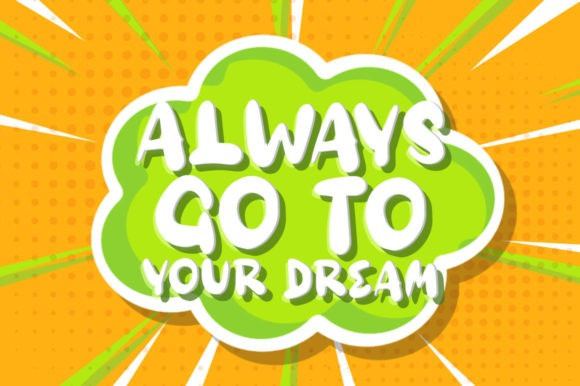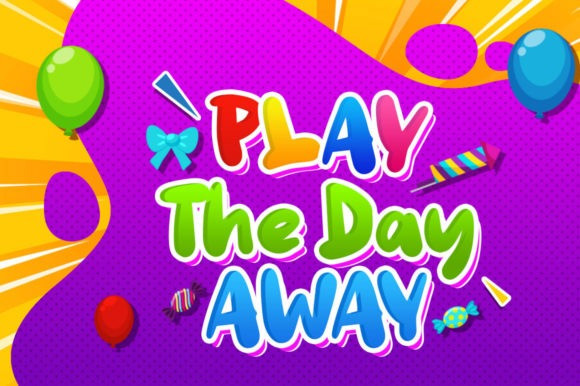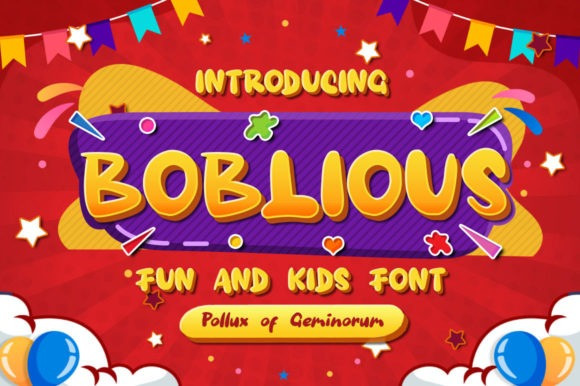
Boblious Font
Boblious Font is a cool and bubbly display font. Add this chunky lettered font to your designs and notice how it makes them come alive!